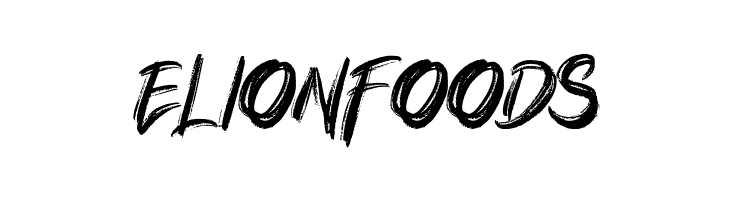
A dynamic brush-style font with bold, sweeping strokes and a hand-painted look.
A bold, expressive brush-style font with textured, dynamic strokes.
A bold, brush-style font with dynamic, hand-painted strokes.
A bold, brush-style font with expressive, hand-painted strokes.
A bold, brush-style font with dynamic, hand-painted strokes.
A bold, brush-like font with a distressed, dynamic appearance.
A distressed, textured font with a dynamic and edgy appearance.
A bold, brush-stroke font with a raw, expressive style.
A bold, graffiti-inspired font with a dynamic and playful style.
A bold, distressed font with a glitch-like, fragmented appearance.